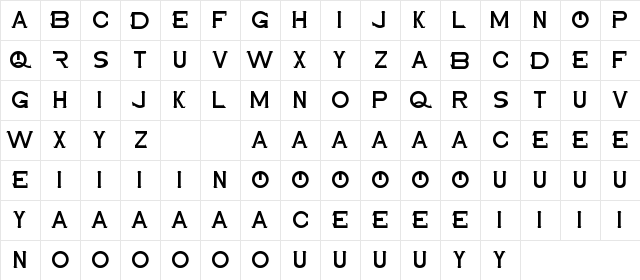
Maxwell Leonard Demo Regular
| Foundry | Edric Studio |
| Designer | Muhammad Lukman F & Suci Anita |
Design Context for Maxwell Leonard Demo Typeface
Maxwell Leonard Demo takes a measured approach to typography — its balanced proportions and neutral character make it a reliable workhorse for both digital and print work.